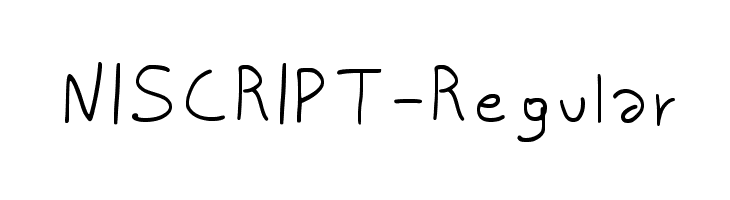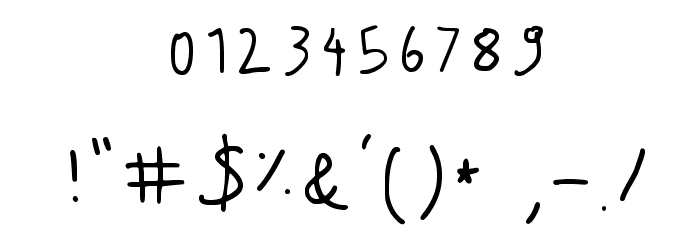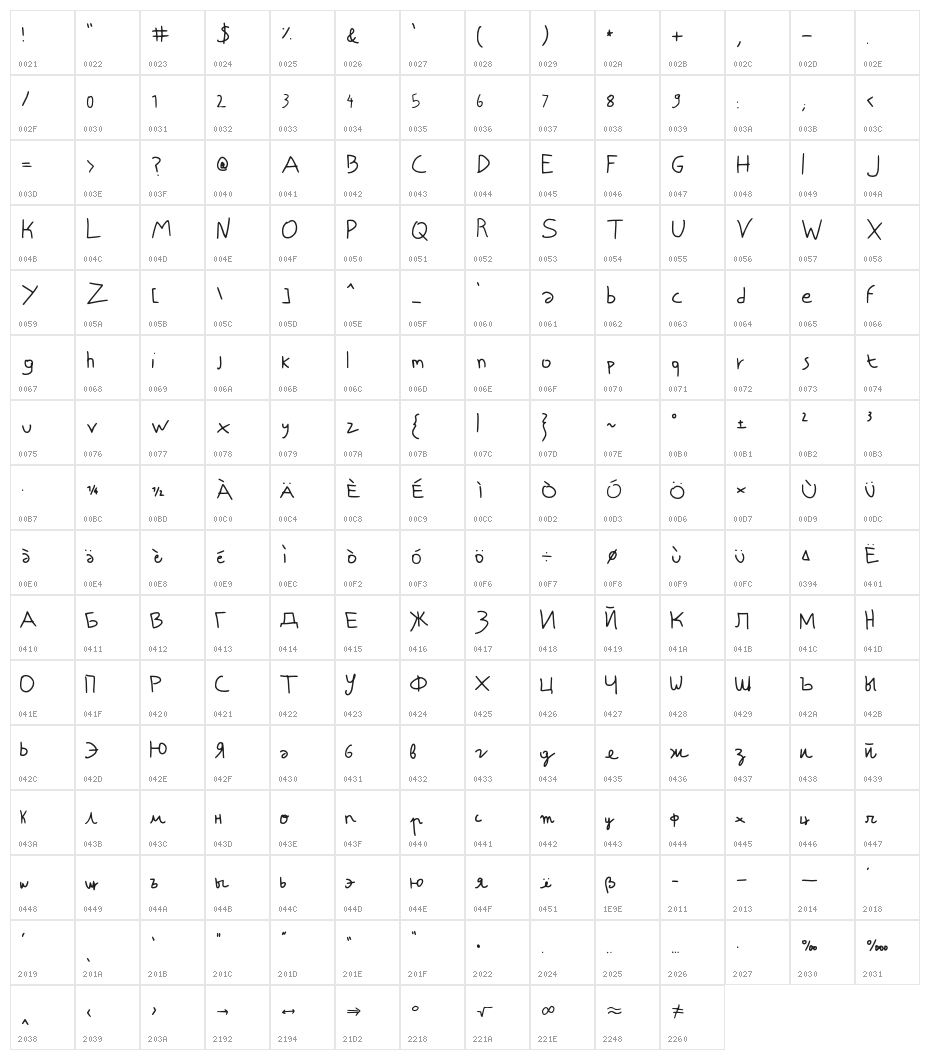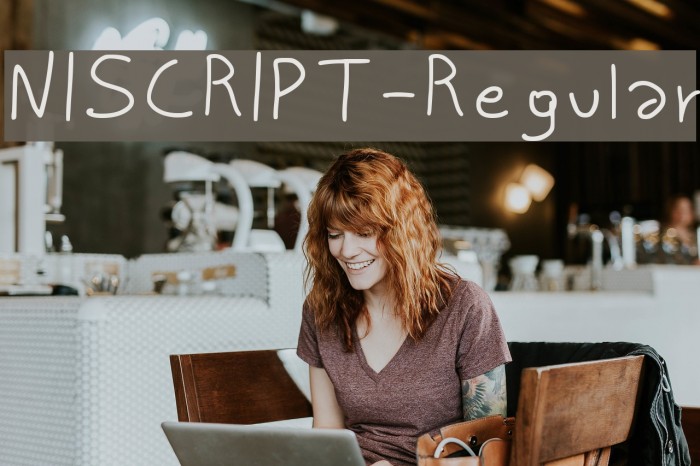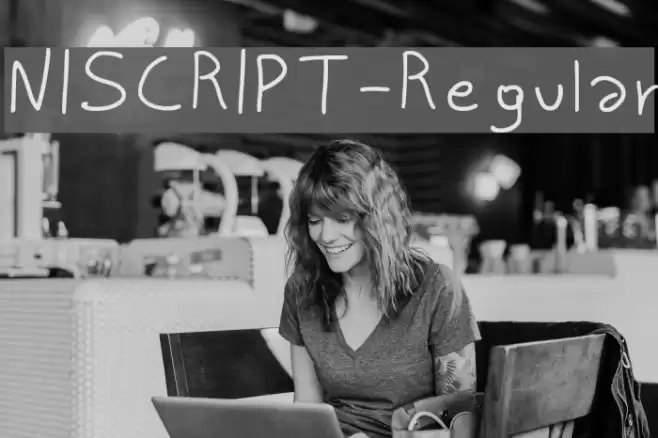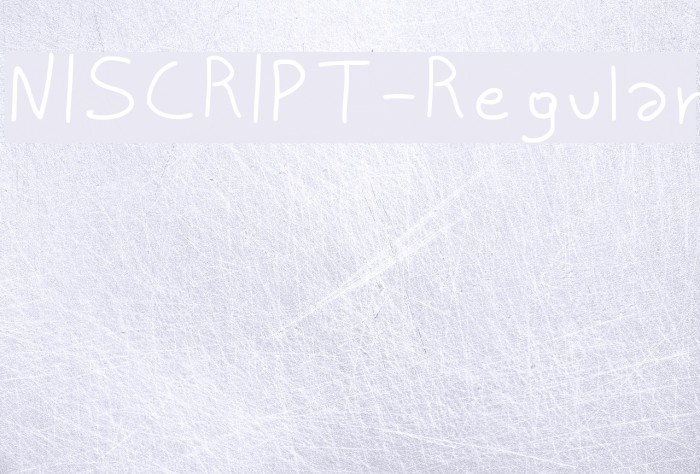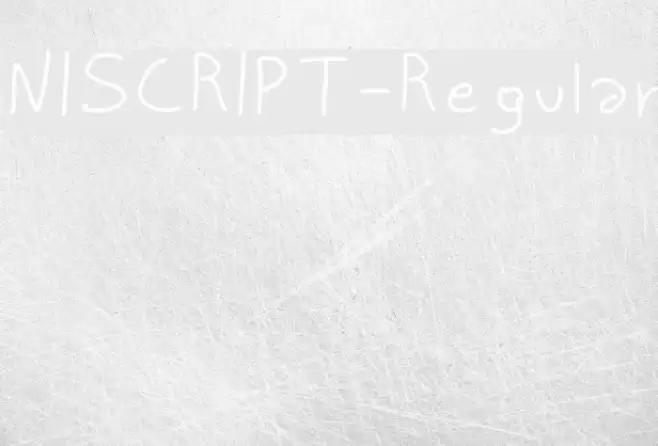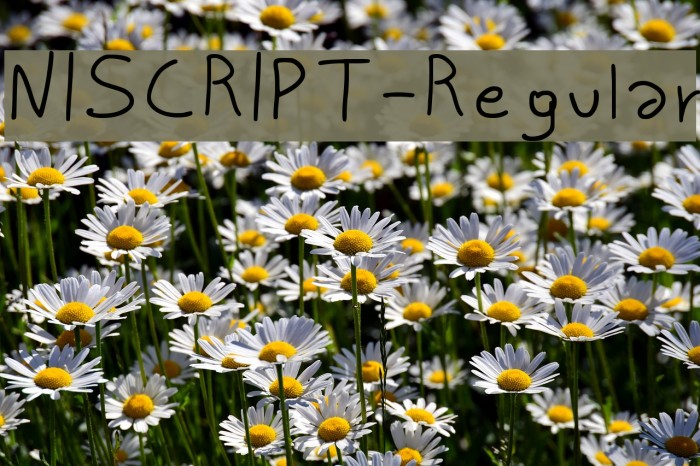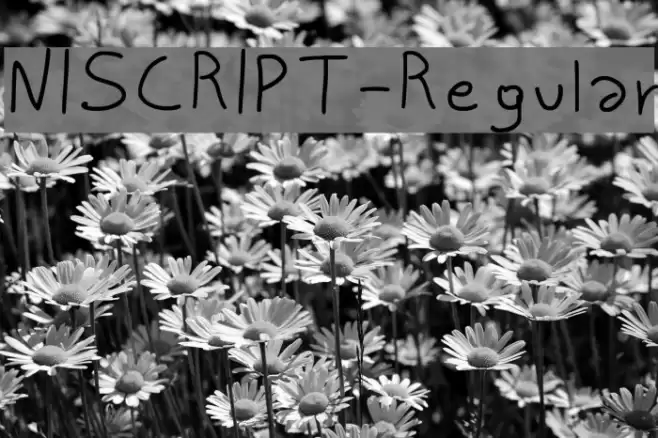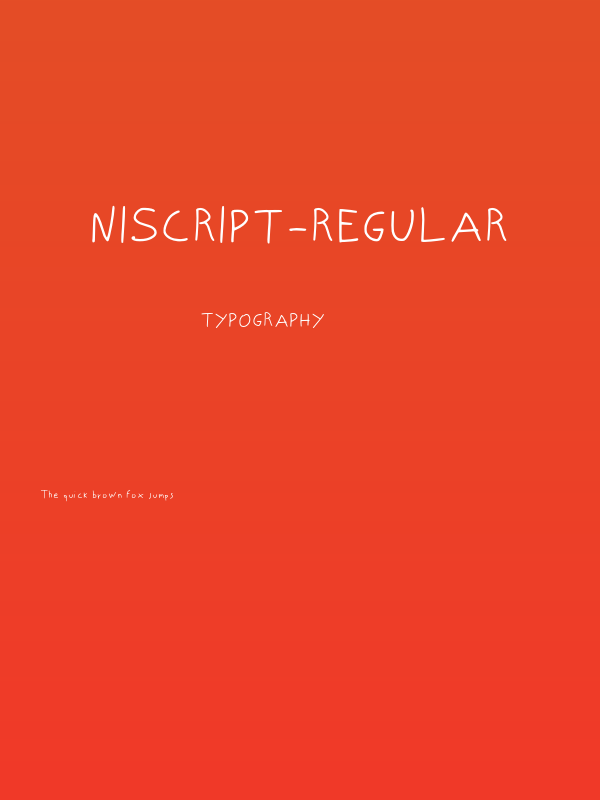
NISCRIPT-Regular Font
NISCRIPT-Regular Description
This font features a playful and informal handwritten style, characterized by its irregular strokes and casual appearance. The letters are slightly slanted, giving a dynamic and lively feel. The uppercase and lowercase letters maintain a consistent style, with rounded edges and a natural flow that mimics handwriting. The numerals and special characters follow the same informal aesthetic, making the font versatile for various creative projects. Its simplicity and charm make it suitable for designs that require a personal touch.
Overall StyleCasual, Playful
Use CaseHeadlines, Informal text, Creative projects
Proposed ProjectsIdeal for greeting cards, children's books, casual invitations, and personal branding projects.